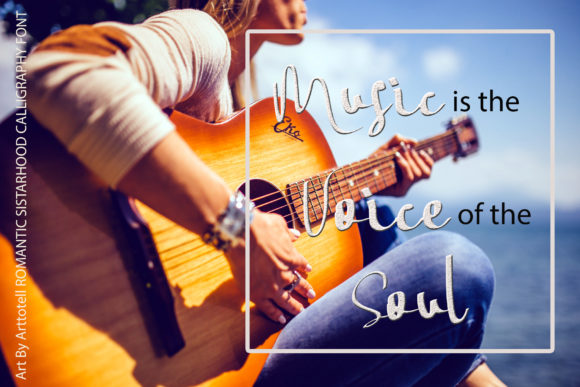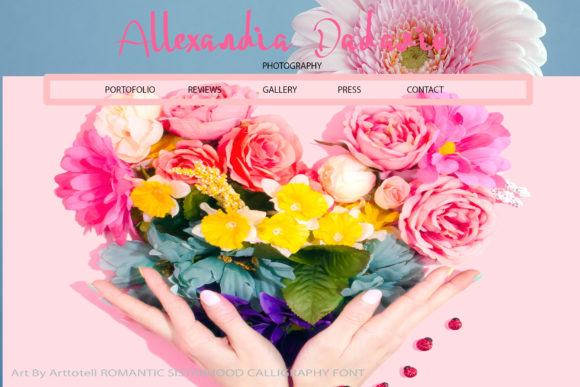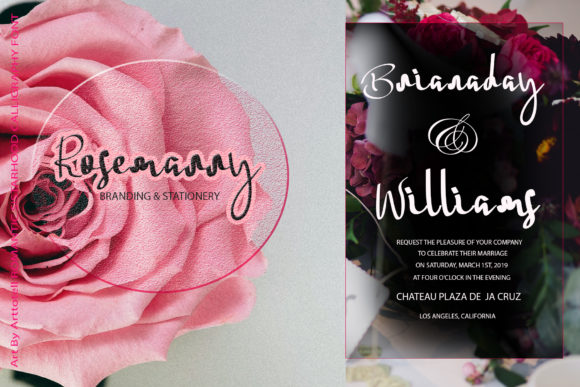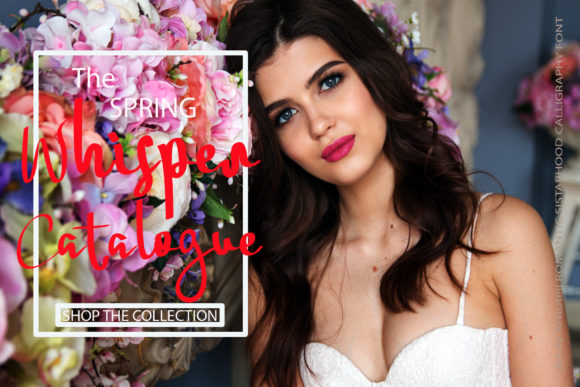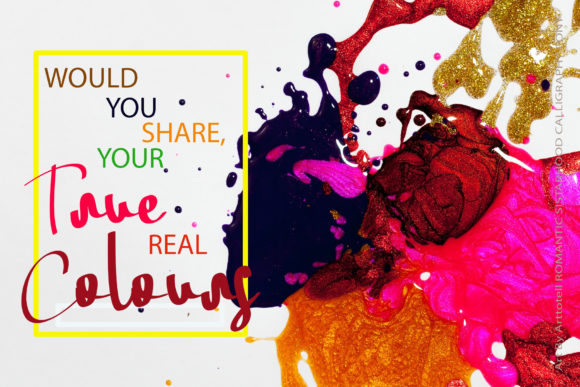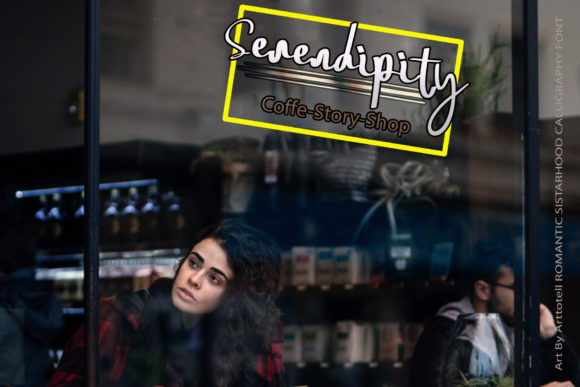
Introduction to Seoul Sistar Family Font Font
Fonts play a crucial role in design, and the Seoul Sistar Family Font font is a typeface that brings both character and versatility to any project. Whether you’re working on a branding project, a website, or a print design, the Seoul Sistar Family Font font offers a unique style that can elevate your work.
The Soul Sistar is a romantic sistarhood calligraphy font.
Itβs unique and perfect for adding a beautiful touch to your logos, packagings, wedding stationary, websites, and every other designs which need a handwritten taste This family includes 4 styles which can be combined perfectly, giving you the opportunity to create multiple unique designs in an instant.
The Seoul Sistar Family Font font is more than just a typeface β it’s a design tool that helps you communicate your message with style and clarity. Its unique character set and versatile design make it suitable for a wide range of applications, from elegant invitations to bold headlines.
With its carefully crafted letterforms and balanced proportions, the Seoul Sistar Family Font font ensures readability and visual appeal across all mediums.
The Seoul Sistar Family Font font stands out with its unique design, exceptional readability, and versatility across various design applications.